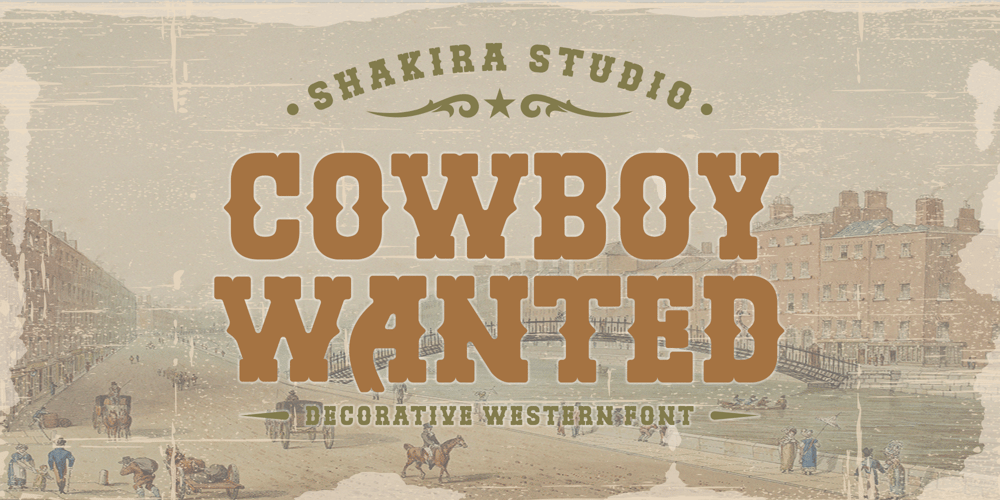
Cowboy Wanted Font Family was designed by Idhham Cholid Rikzano Yahya and published by Shakira Studio. Cowboy Wanted contains 1 styles and family package options. Introducing “Cowboy Wanted” – The Ultimate Western Retro Serif Font!Saddle up and embrace the wild, wild west with Cowboy Wanted, the font that’s taking the design world by storm. This font embodies the perfect blend of old-school ruggedness and contemporary flair, making it the hottest ticket in town for all your Western-inspired design needs.Each character in Cowboy Wanted is meticulously crafted to capture the essence of the Old West, from the sweeping serifs to the rugged lines. Whether you’re working on a saloon-inspired logo, a rustic poster, or a themed event invitation, Cowboy Wanted adds that authentic Western touch that’s so in demand right now.Don’t miss your chance to lasso the trendiest Western retro serif font of the moment. With Cowboy Wanted, you’ll be the sheriff of style in your design projects, standing out in the crowded frontier of design. Saddle up and make a bold statement with Cowboy Wanted today!Here’s what you get: Cowboy Wanted Regular All Multilingual symbol Opentype features ( ligature, alternate ) Accessible in the Adobe Illustrator, Adobe Photoshop, Adobe InDesign, even work on Microsoft Word. PUA Encoded Characters – Fully accessible without additional design software. Multilingual character supports : (Afrikaans, Albanian, Catalan, Croatian, Czech, Danish, Dutch, English, Estonian, Finnish, French, German, Hungarian, Icelandic, Italian, Lithuanian, Maltese, Norwegian, Polish, Portuguese, Slovenian, Spanish, Swedish, Turkish, Zulu)Follow my shop for upcoming updates, and for more of my work,Thank you!